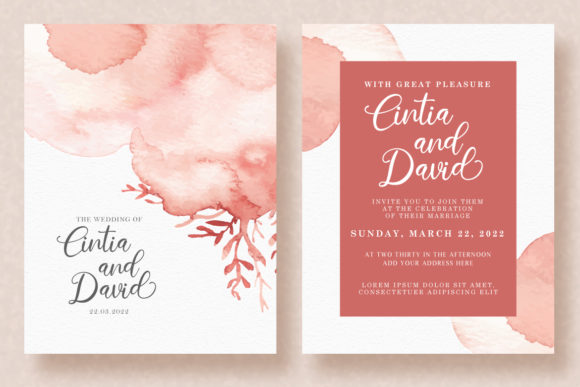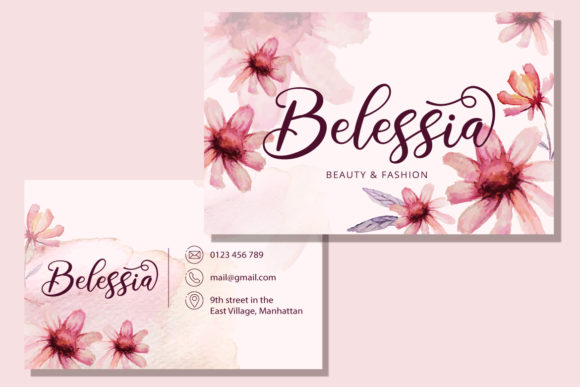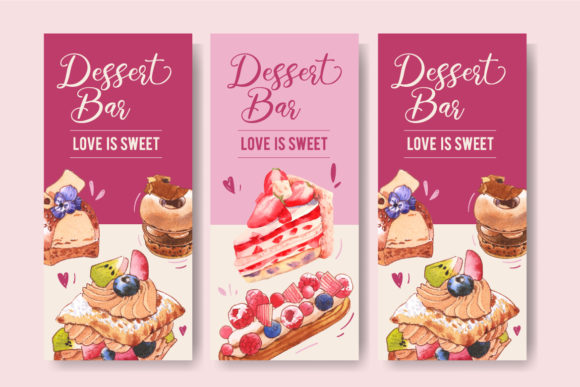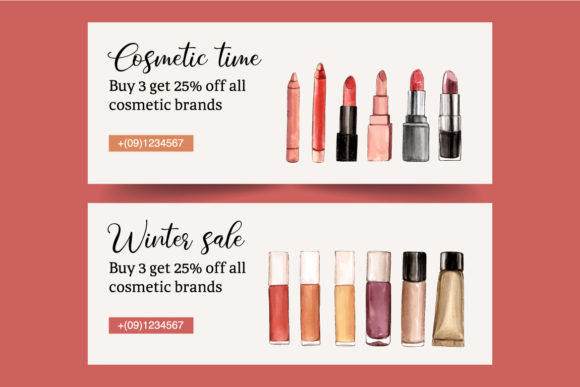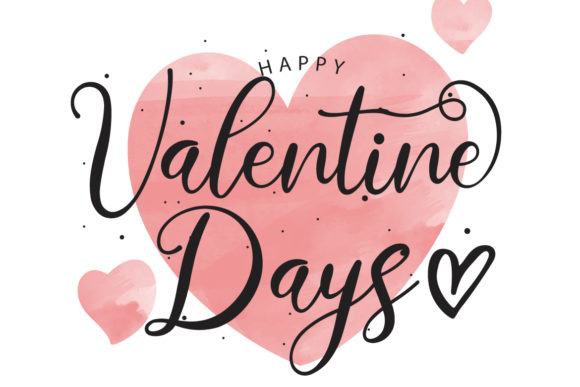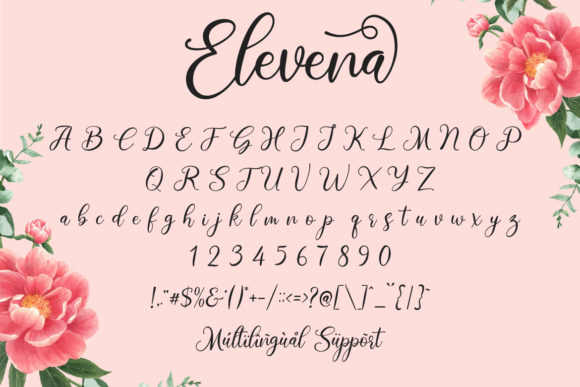
Introducing Elevena Font: A Delicate and Elegant Handwritten Script
Are you a designer or crafter looking for a font that can elevate your creative projects to the next level? Look no further than Elevena Font, a beautiful and elegant handwritten script that is sure to impress. With its delicate and flowing lines, Elevena is the perfect choice for a wide range of designs, from wedding invitations and branding materials to digital products and craft projects.
What Makes Elevena Font So Special?
Elevena Font is a truly unique and special font that offers a range of features that set it apart from other fonts. Here are just a few of the things that make Elevena so special:
- Delicate and Elegant Design: Elevena has a delicate and elegant design that is perfect for creating beautiful and sophisticated designs. The font features a varying baseline, smooth lines, and gorgeous glyphs that work together to create a truly stunning effect.
- Well-Balanced Characters: One of the standout features of Elevena is its well-balanced characters. Each letter is carefully crafted to ensure that it looks great on its own and in combination with other letters. This makes it easy to create beautiful and harmonious text that is a pleasure to read.
- Stunning Alternates: Elevena also features a range of stunning alternates that allow you to add even more creativity and personality to your designs. With multiple alternate characters to choose from, you can create unique and eye-catching text that really stands out.
How to Use Elevena Font in Your Designs
Elevena Font is incredibly versatile and can be used in a wide range of designs. Here are just a few ideas to get you started:
- Wedding Invitations: Elevena is the perfect choice for wedding invitations and other formal events. Its elegant and sophisticated design makes it ideal for creating beautiful and memorable invitations that will set the tone for your special day.
- Branding Materials: If you’re looking for a font that can help you create a strong and memorable brand, Elevena is a great choice. Its unique and elegant design makes it perfect for use in logos, business cards, and other branding materials.
- Digital Products: Elevena can also be used to create stunning digital products, such as ebooks, courses, and software. Its smooth lines and gorgeous glyphs make it easy to read and look great on a range of devices.
- Craft Projects: Finally, Elevena is also a great choice for craft projects, such as papercraft, card making, and scrapbooking. Its delicate and elegant design makes it perfect for creating beautiful and intricate designs that will add a personal touch to your crafts.
Tips for Getting the Most Out of Elevena Font
To get the most out of Elevena Font, here are a few tips to keep in mind:
- Experiment with Different Sizes and Colors: Elevena looks great in a range of sizes and colors, so don’t be afraid to experiment and find the combination that works best for your design.
- Use Alternates to Add Personality: The alternates in Elevena are designed to add personality and creativity to your designs. Use them to create unique and eye-catching text that really stands out.
- Pair with Other Fonts: Elevena can be paired with other fonts to create a range of different effects. Try pairing it with a bold sans-serif font for a striking contrast, or with another script font for a more elegant look.
| Font Name | Elevena Font |
| Author | Fallengraphic |
In conclusion, Elevena Font is a beautiful and elegant handwritten script that is perfect for designers and crafters looking to create stunning and sophisticated designs. With its delicate and flowing lines, well-balanced characters, and stunning alternates, Elevena is the perfect choice for a wide range of projects. Whether you’re creating wedding invitations, branding materials, digital products, or craft projects, Elevena is sure to impress. So why wait? Download Elevena Font today and start creating your most beautiful designs yet!